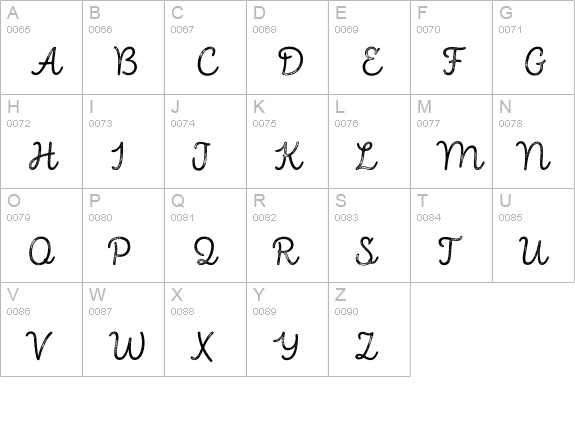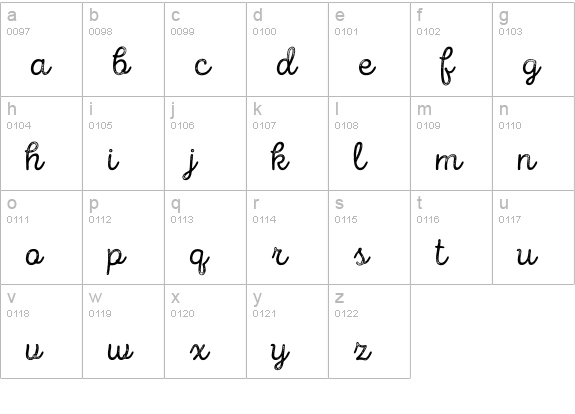
Intro Script R G Base Font Details
Intro Script R G Base font is a stunning typeface that effortlessly combines elegance with modernity. With its unique and stylish design, this font exudes sophistication and charm, making it perfect for a wide range of design projects. Whether you're working on a branding project, invitation, or any other creative endeavor, Intro Script R G Base font will add a touch of class and sophistication to your work. The best part? This amazing font is available for free download at FontsMarket.com, allowing you to access its beauty and versatility without any cost. Don't miss out on the opportunity to elevate your designs with the exquisite Intro Script R G Base font today. Download it now and let your creativity shine!